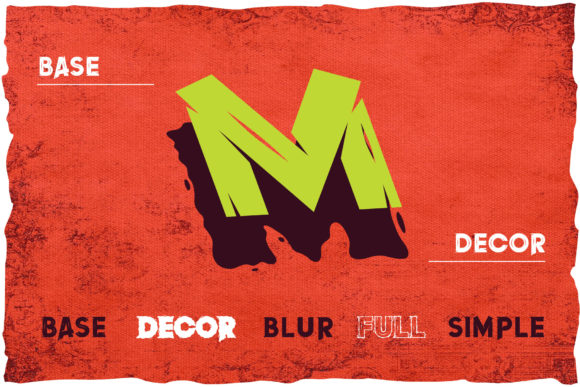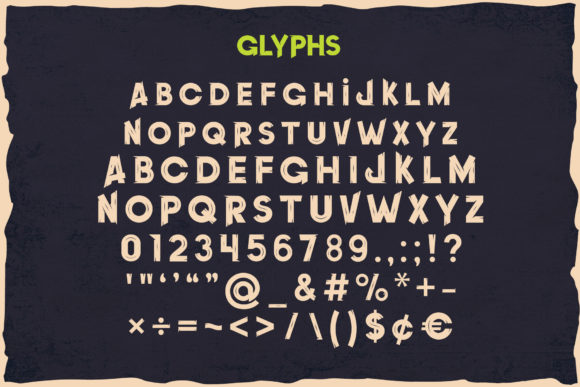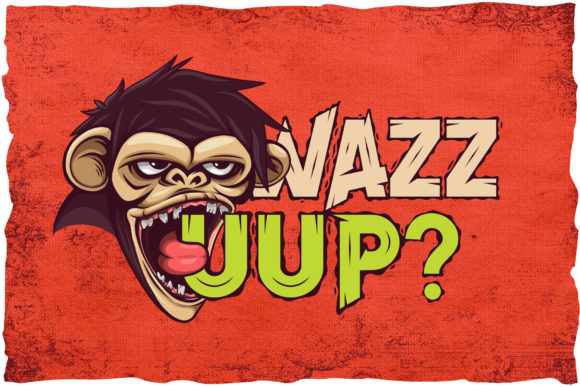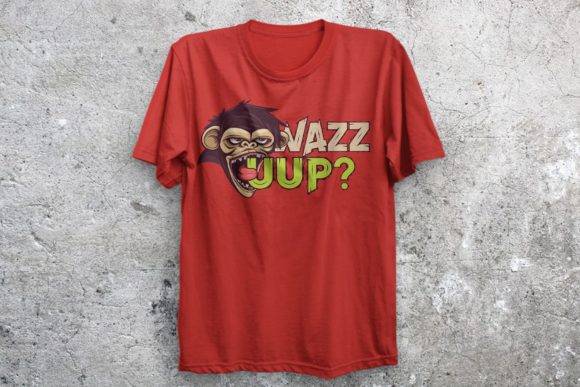
The Perfect Distraction: How the Right Font Can Spark Inspiration
Have you ever stared at a blank canvas, struggling to come up with the perfect idea? You’ve scrolled through social media, read a few blogs, and maybe even changed your environment, but nothing seems to be working. Then, out of the blue, you stumble upon a font that catches your eye. Suddenly, your creative juices start flowing, and you’re off and running. For designers, this moment is all too familiar, and it’s exactly what makes Angry Monkey Font so special.
This vintage styled display font is more than just a pretty face – it’s a game-changer. Whether you’re working on a project that needs a touch of nostalgia or a dash of edginess, Angry Monkey Font is the perfect asset to have in your toolkit. Its unique blend of cool and quirky makes it an instant mood-booster, guaranteed to elevate any creation and leave a lasting impression.
Key Features of Angry Monkey Font
- Font Family: The Angry Monkey Font is a sans-serif font family, ideal for modern and edgy designs.
- Character Set: The font includes a wide range of characters, including uppercase and lowercase letters, numbers, punctuation marks, and special characters, making it suitable for various languages and applications.
- Size and Resolution: The font is available in 6 different weights, ranging from Thin (100) to Black (900), with a resolution of 300 DPI, ensuring crisp and clear text rendering at various sizes.
- Unique Characteristics: The Angry Monkey Font features a unique, distressed design with a mix of rough and smooth textures, giving it a dynamic and energetic feel.
Designer Review: Angry Monkey Font
I recently had the chance to work with the Angry Monkey Font, and I must say it’s an interesting choice for designers. The font has a certain charm to it, and I think it would be perfect for projects that require a fun, energetic vibe. ✨ The bold lines and playful letterforms really stand out, and I appreciate the unique character it brings to the table.
Here are some of the things that work well with the Angry Monkey Font:
- ✨ Unique character: As mentioned earlier, the font has a distinct personality that can add a lot of flair to a project.
- ✨ Versatile: I was able to use the font for both body text and headings without any issues.
- ✨ Customizable: The font comes with a range of weights and styles, which makes it easy to find the perfect fit for your project.
- ⚠️ Limited legibility: In some cases, the font can be difficult to read, especially at smaller font sizes.
Overall, I think the Angry Monkey Font is a great choice for designers who want to add some personality to their projects. While it may have some limitations, the unique character and versatility make it a great option for the right projects.
Tips for Getting the Most Out of Angry Monkey Font
For the best results, use Angry Monkey Font in bold or italic styles to add emphasis to your text.
Pair Angry Monkey Font with other playful fonts to create a unique and eye-catching design.
Angry Monkey Font is perfect for:
- Creative logos and branding
- Playful social media graphics
- Fun and quirky advertisements